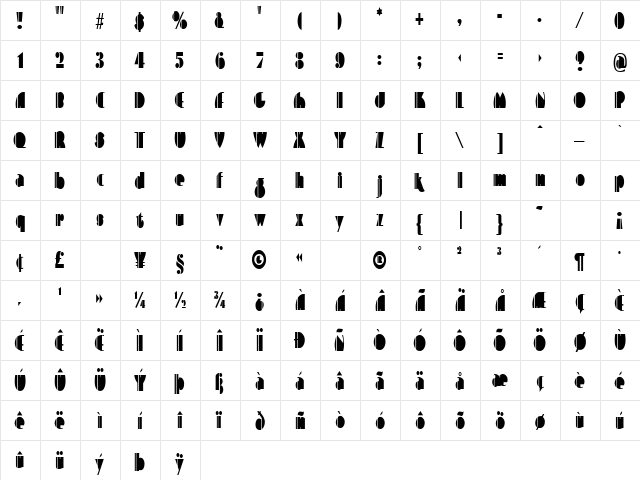
ContemporaryCondensed Regular
Design Context for ContemporaryCondensed Typeface
ContemporaryCondensed is a composed and adaptable typeface that performs quietly and consistently across a wide range of design contexts. The condensed width makes it efficient for tight spaces without sacrificing legibility.